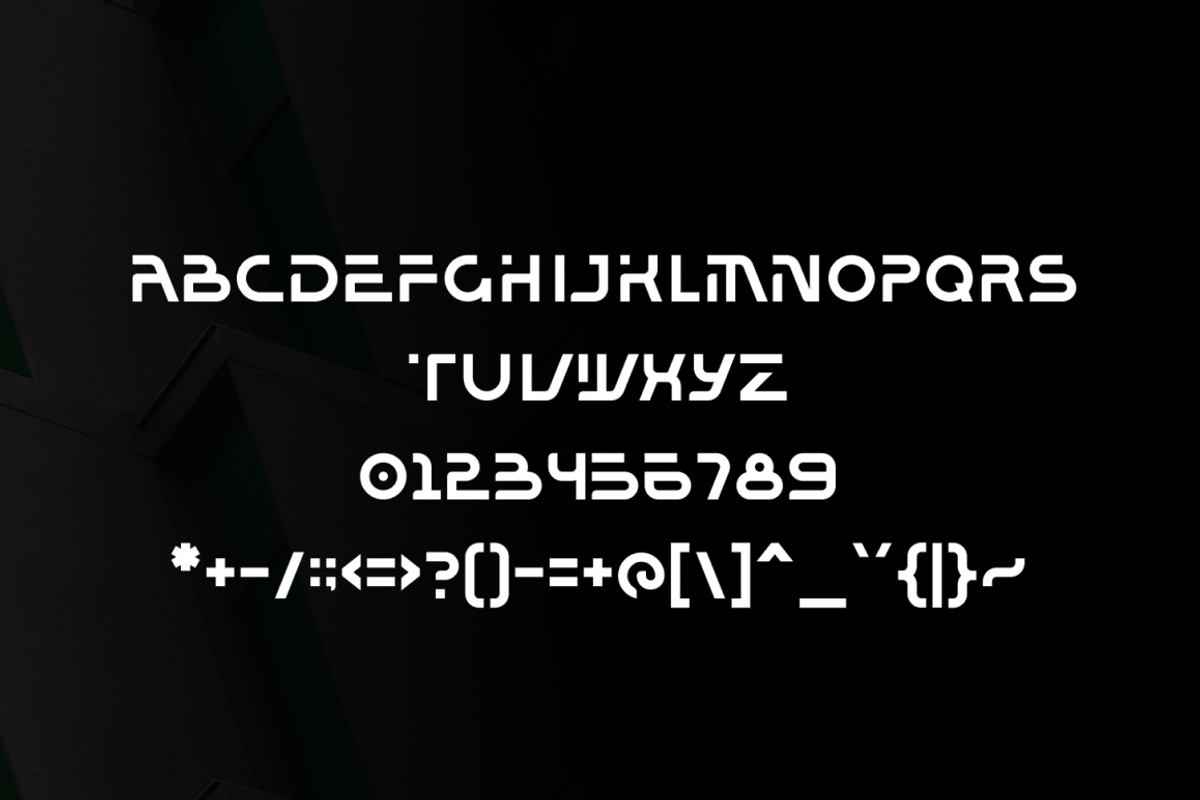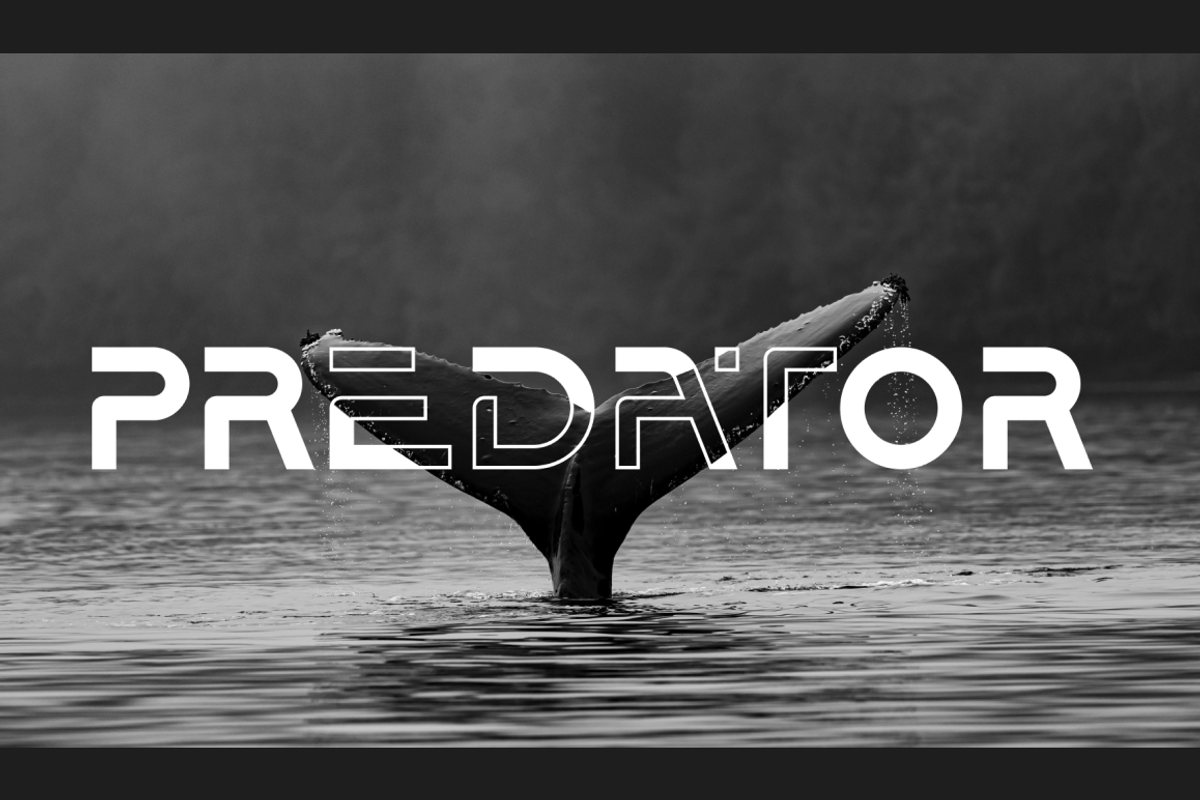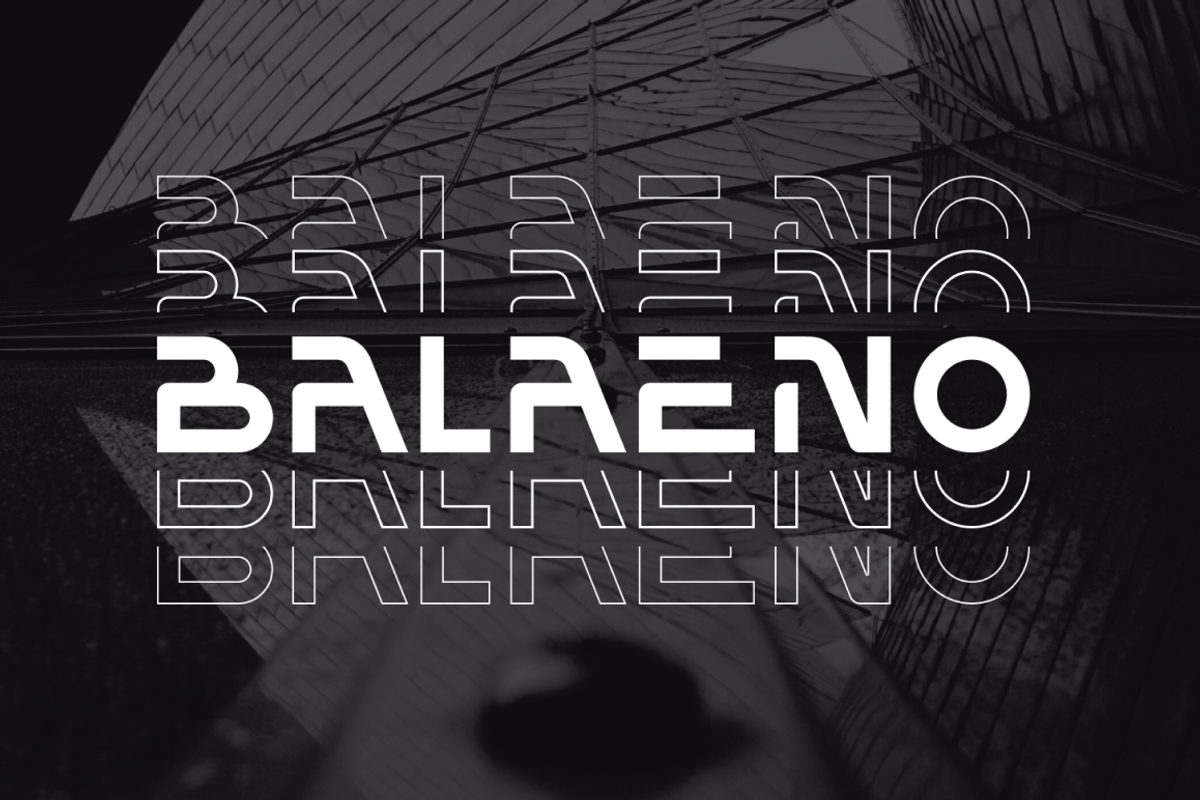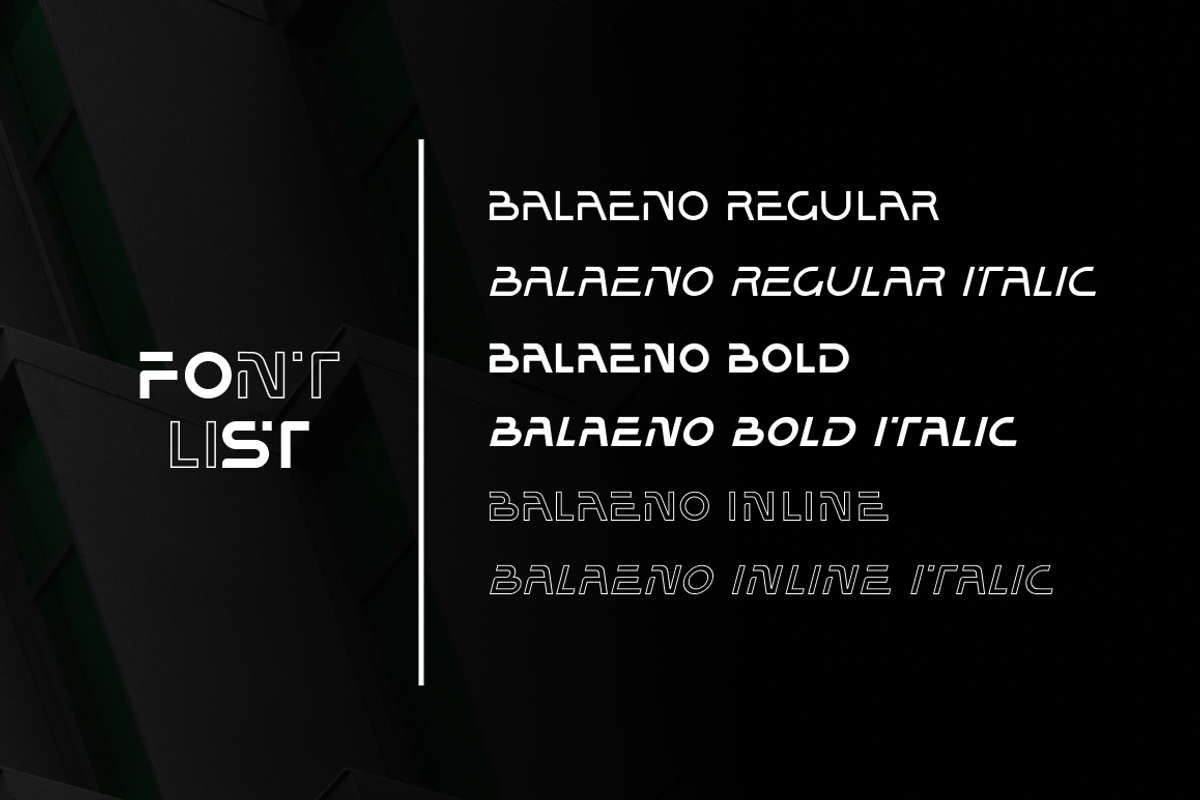
Balaeno Font
Balaeno seamlessly combines modern sophistication, technological innovation, sporting spirit, and timeless elegance into one captivating font. With its sleek design and sharp lines, the font not only reflects contemporary trends but also exudes cutting-edge technological vibes suitable for a range of design projects.